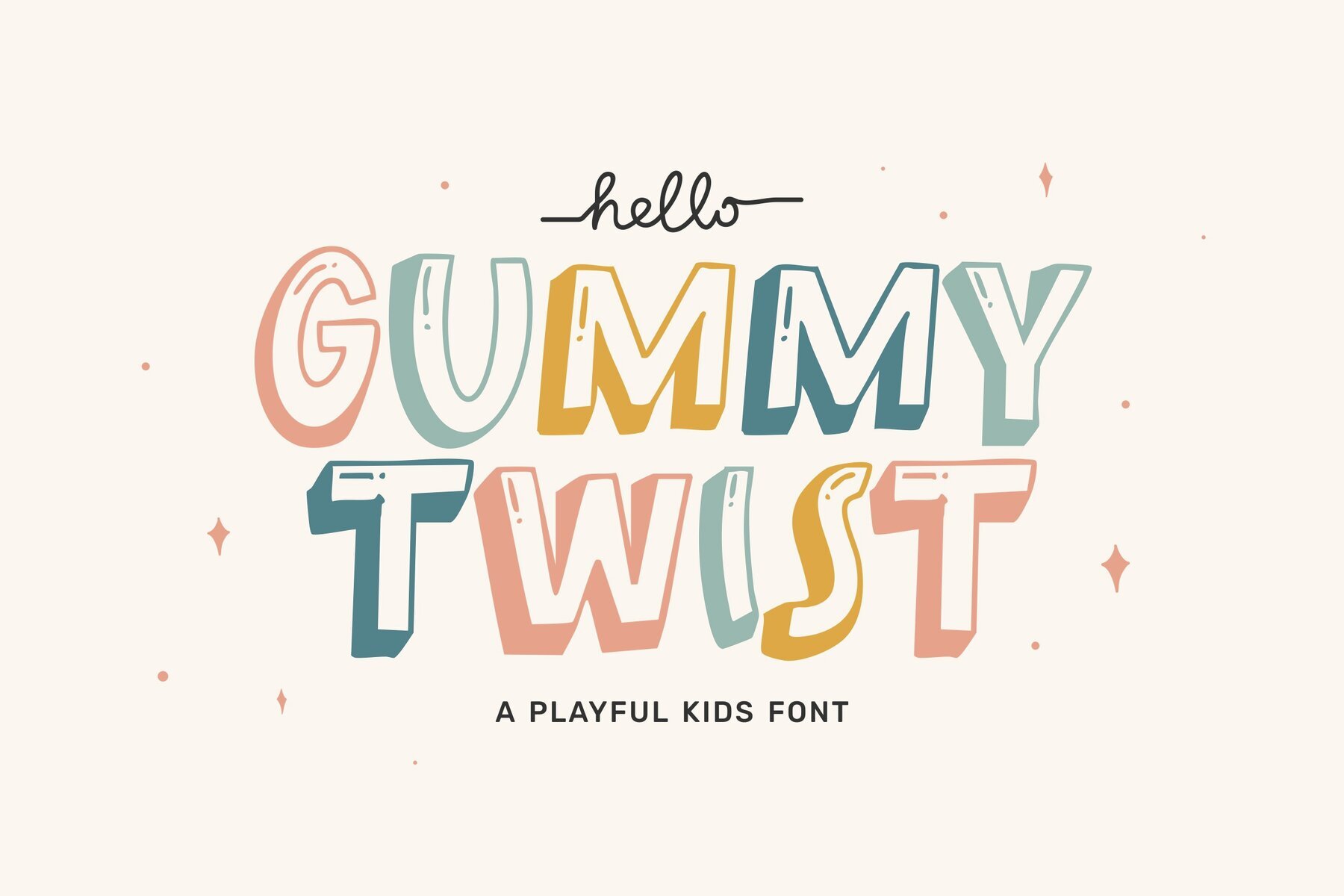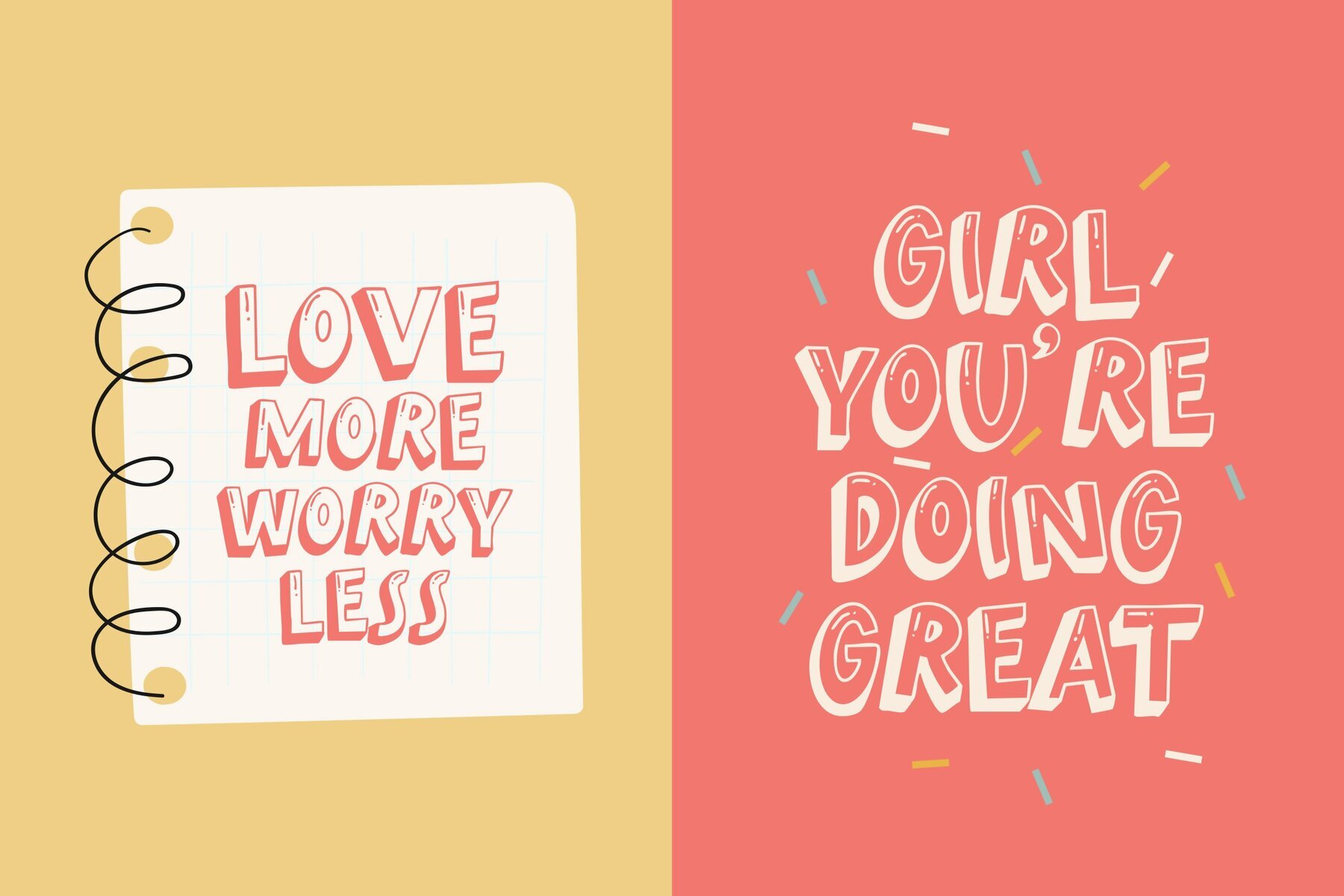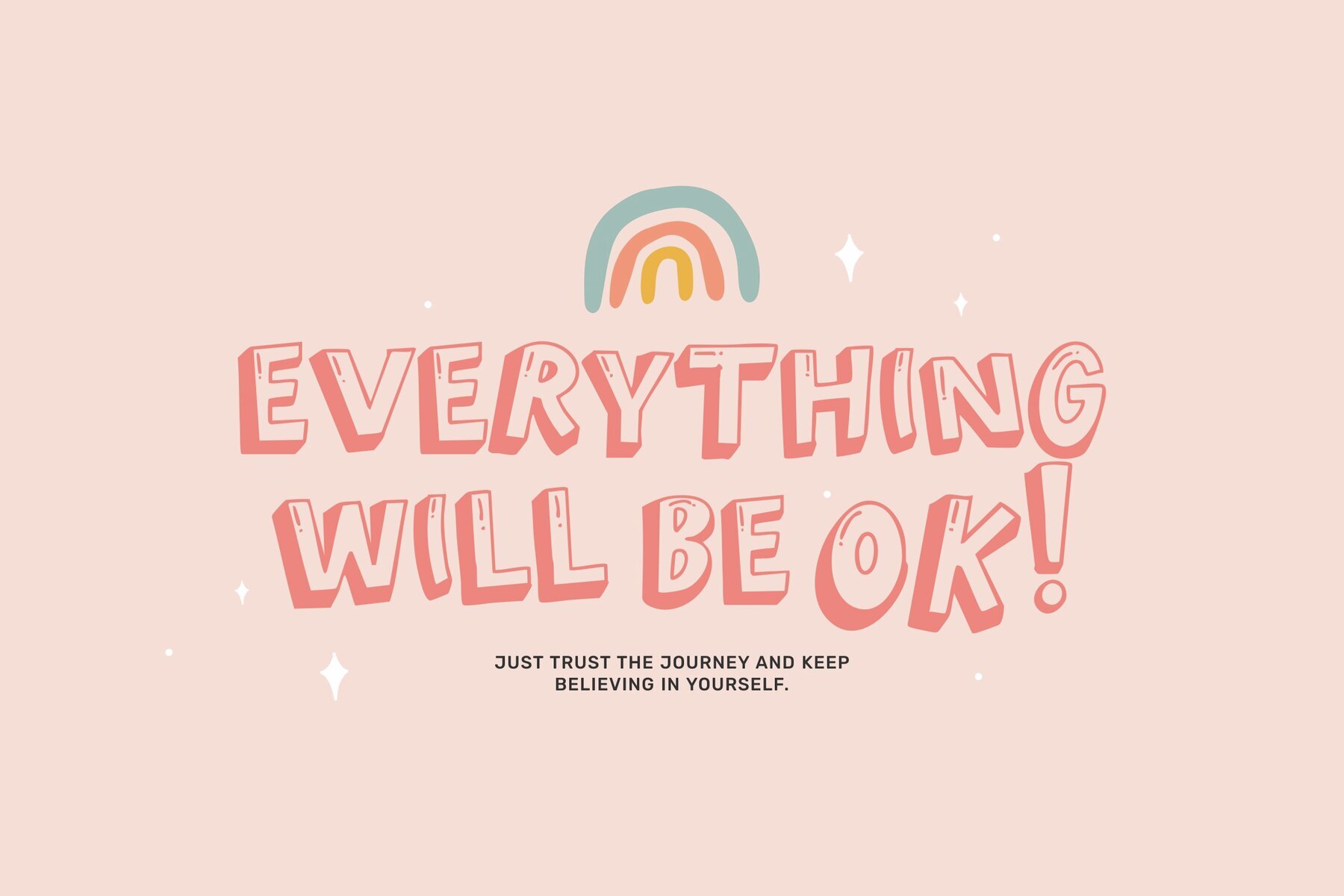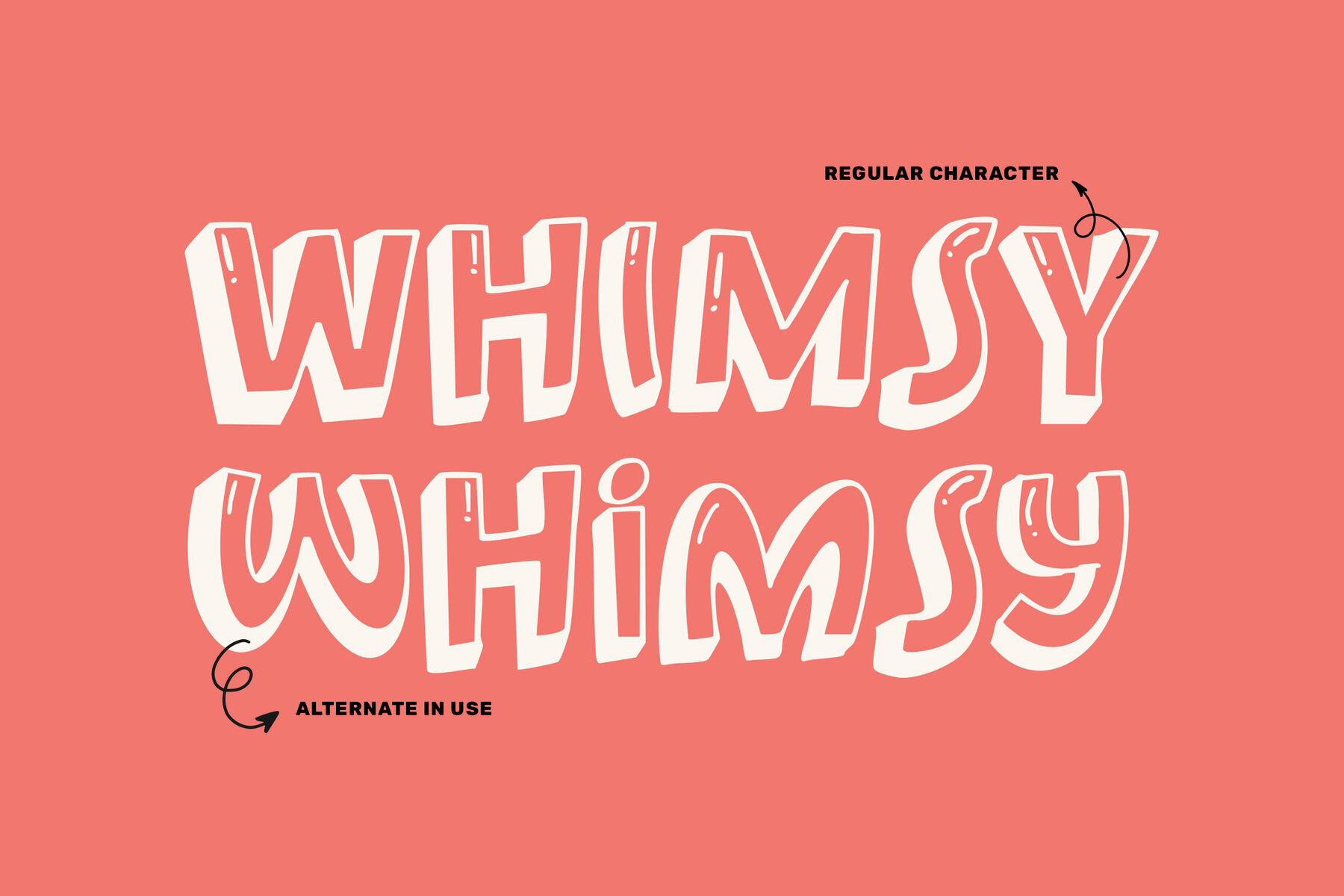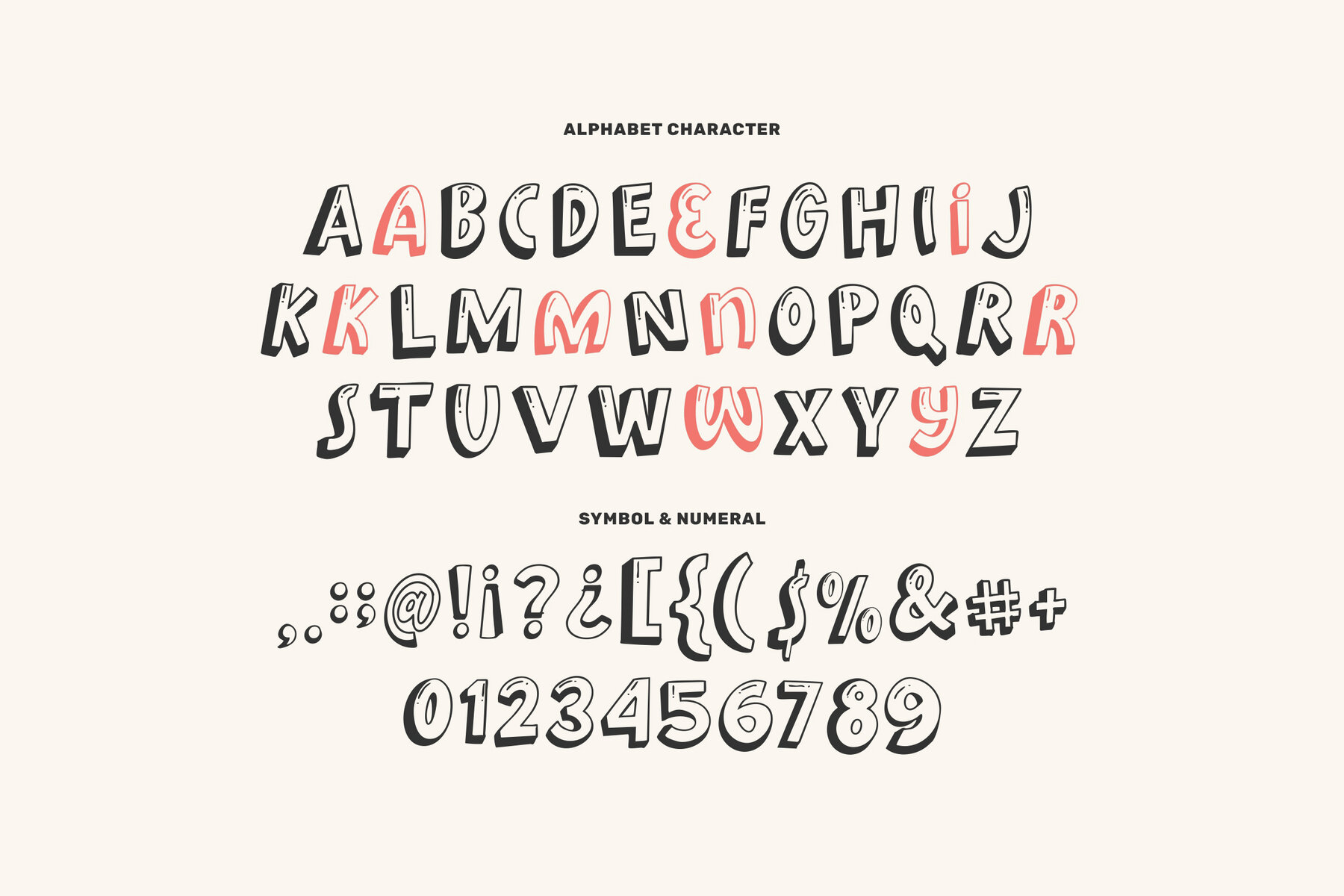
Gummy Twist Font
Gummy Twist Regular
Gummy Twist brings a lively touch to children's designs with bold, animated letterforms. Each character is unique, offering variation in size and orientation for a dynamic look. Subtle shading and 3D highlights add depth, making text appear tactile and engaging for young audiences. Perfect for projects aiming to capture attention and spark smiles, Gummy Twist is a go-to choice for kid-focused branding, advertising, or creative content.Gummy Twist: 3D Playful Kids Typeface